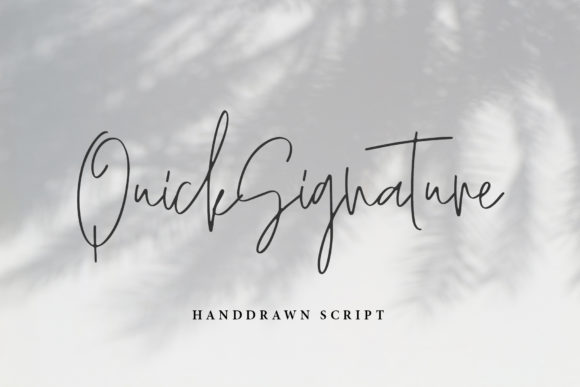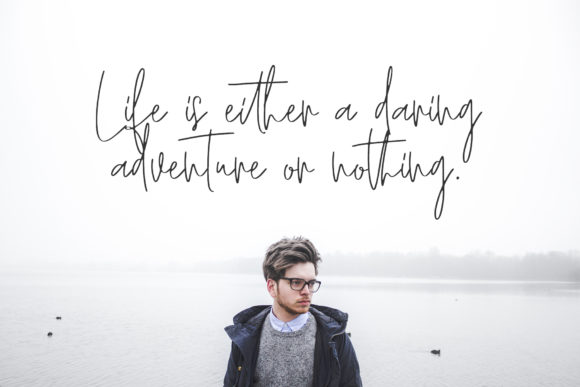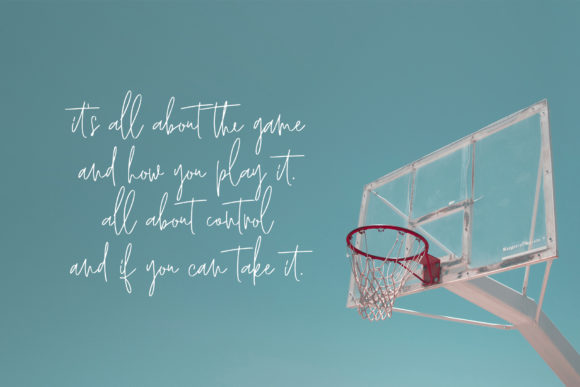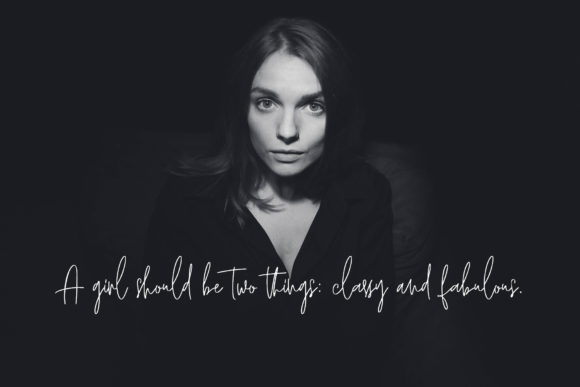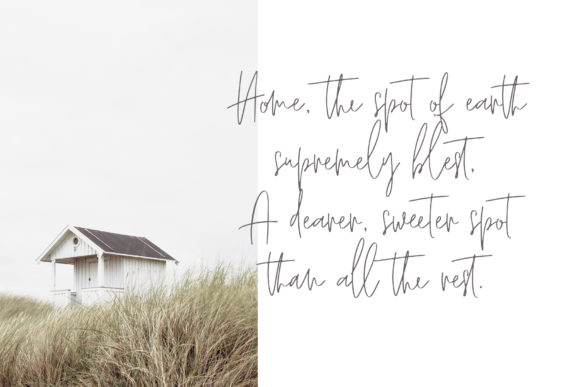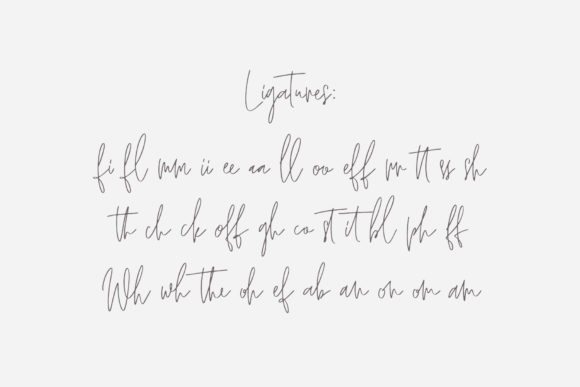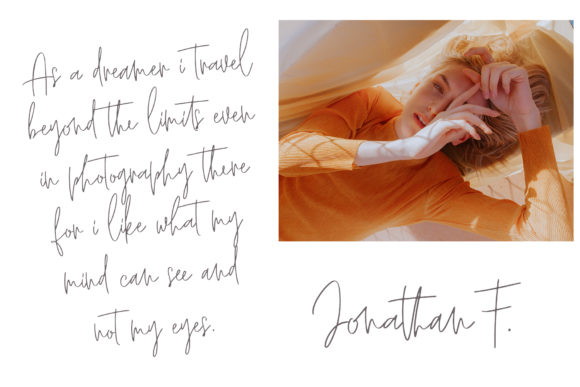
Quick Signature Font
About Quick Signature Font
Quick Signature is, as the name suggests, inspired by quick handwriting. It nevertheless makes a stunning typeface, perfect for adding a personal touch to any design project!